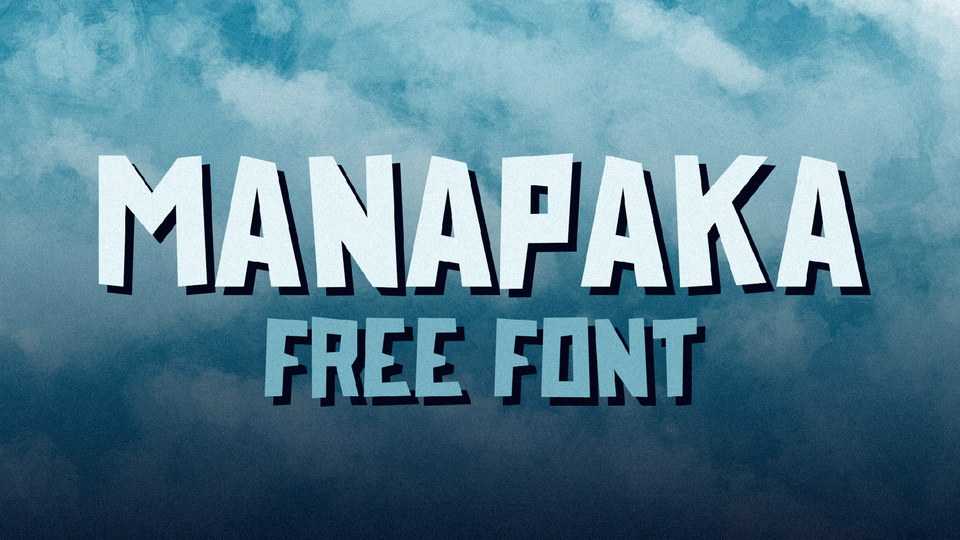
Download Manapaka font, a fun, playful, bold display typeface that will bring joy and happiness to any project. Manapaka is best suited for display, heading, text, print, branding, signage, and more.